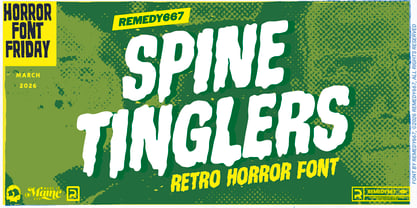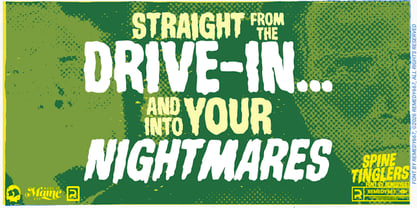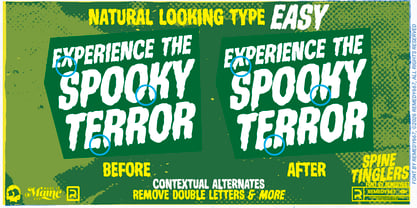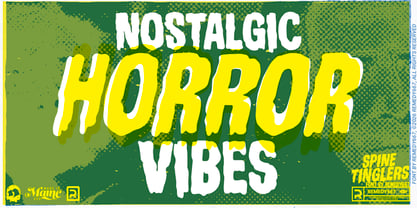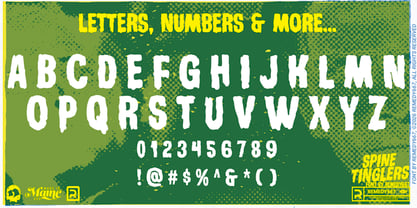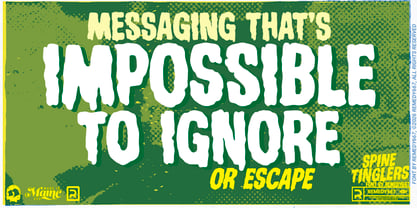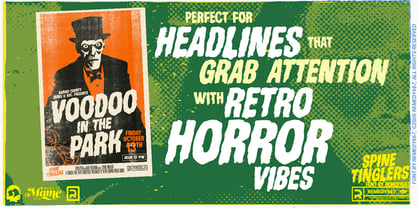
Spine Tinglers 667
by Remedy667
The Spine Tinglers 667 Font Family was designed by Nick Polifroni and published by Remedy667. Spine Tinglers 667 contains 2 styles and family package options. More about this family
Prepare for a chill that crawls right up your backbone! Spine Tinglers is ripped from the classic horror press-book lettering of the Blood Suckers / Blood Thirst double feature! Where every word promises unspeakable horrors to come! Spine Tinglers is designed for those who like their devils in the details. Spine Tinglers hand-drawn horror typeface is perfect for subtitles, taglines, and those scream-worthy catchwords that grab your audience by the attention span. Complete with shape-shifting letterforms, Spine Tinglers feels alive compared to other basic fonts. Check it out today, before it grabs you… Features Perfect for subtitles, taglines, and horror catchphrases Contextual alternates for more natural looking letterforms Includes Regular and Oblique styles for flexible design Multilingual support for global domination in foreign markets
Designers: Nick Polifroni
Foundry: Remedy667
Spine Tinglers 667